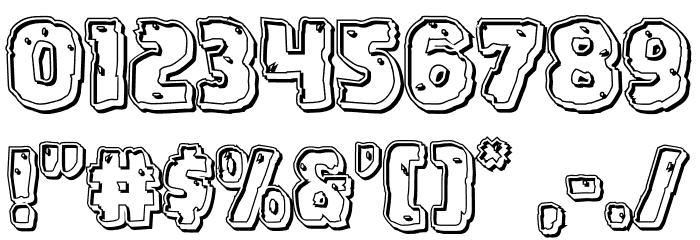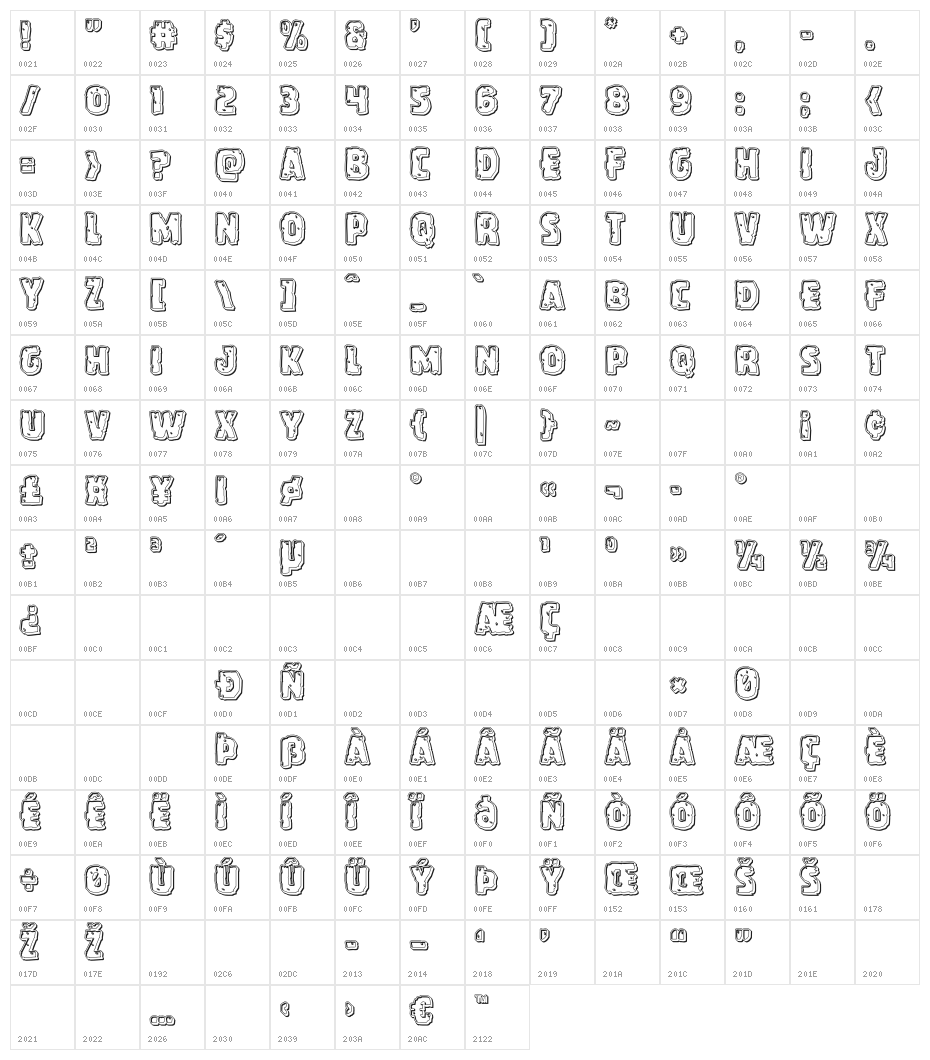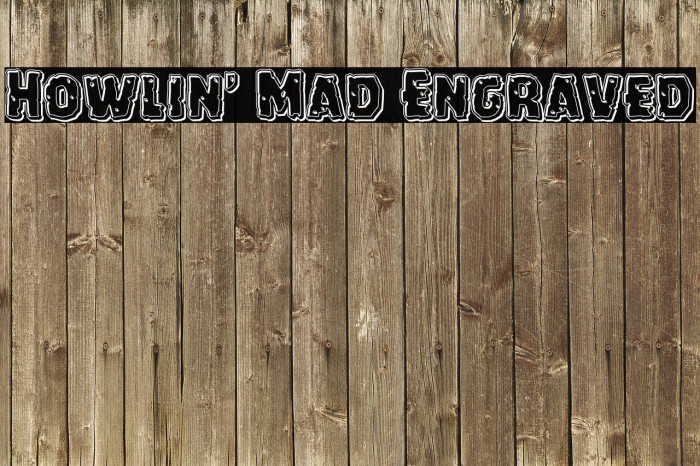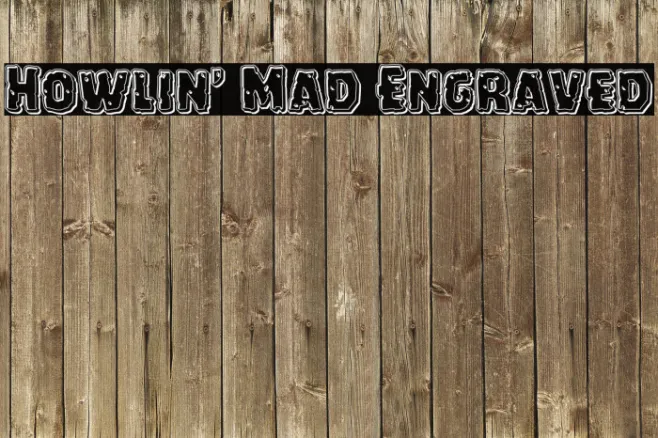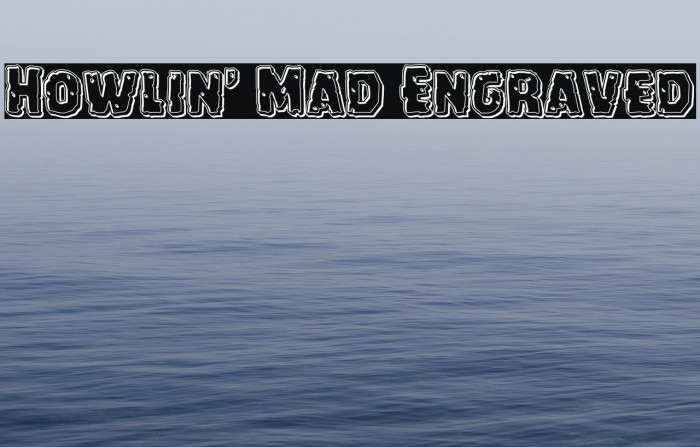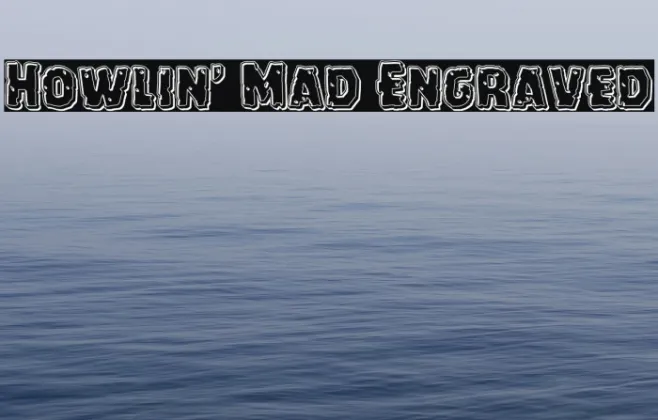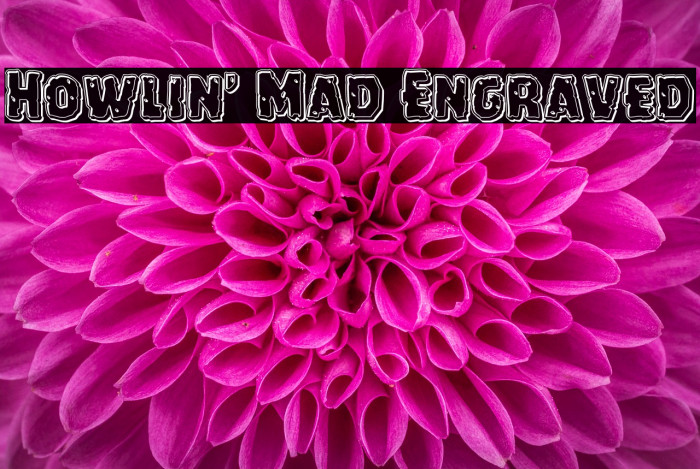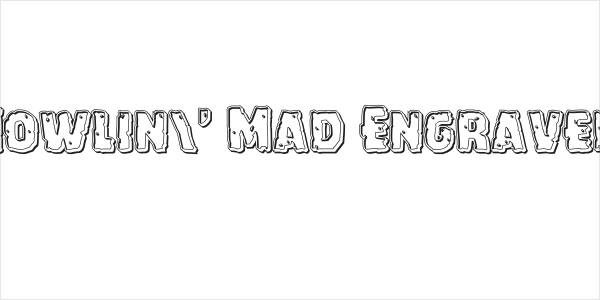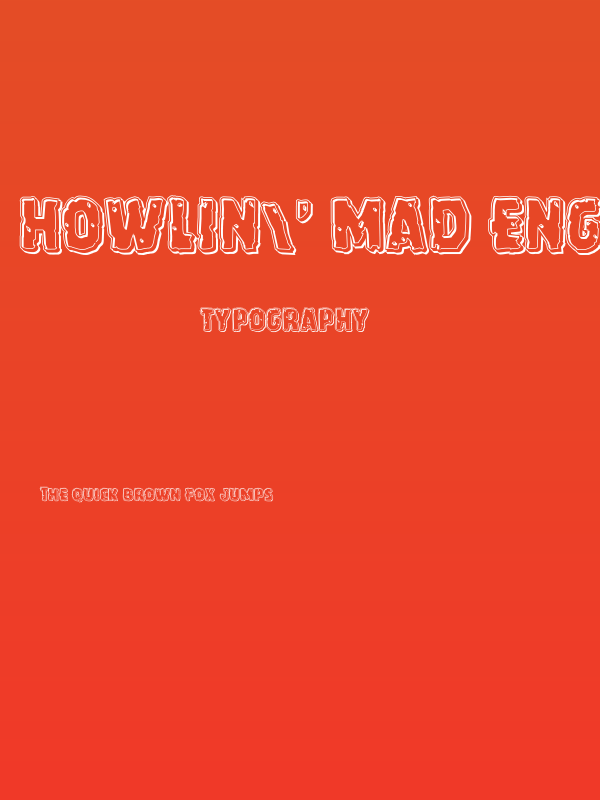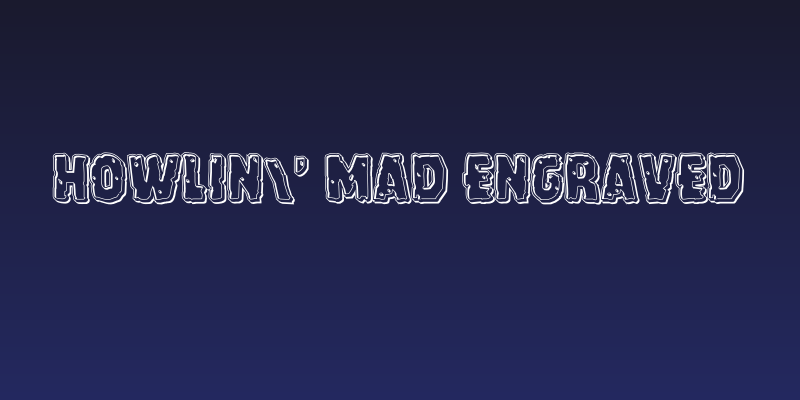
Howlin' Mad Engraved Font
Howlin' Mad Engraved Description
This font features a bold, engraved style with a rugged and distressed appearance. Each character is outlined with a thick, uneven border that gives it a hand-drawn, graffiti-like feel. The interior of the letters is filled with a textured pattern, adding depth and a tactile quality. The overall design is playful yet edgy, making it suitable for projects that require a strong visual impact. The uppercase and lowercase letters maintain a consistent style, while the numerals and special characters complement the alphabet with the same bold and textured look.
| Proposed Projects | Ideal for posters, album covers, video game graphics, and any project needing a bold, edgy aesthetic. |